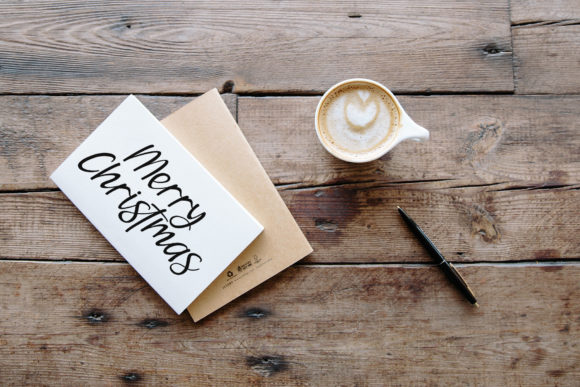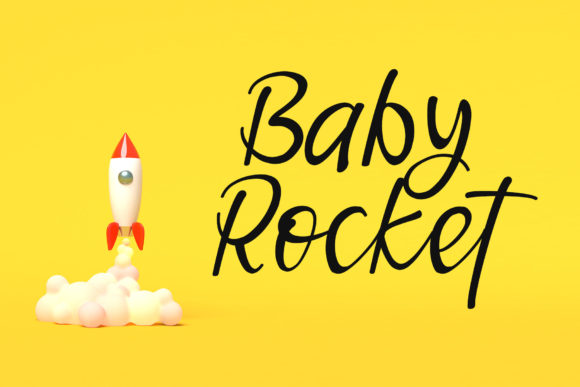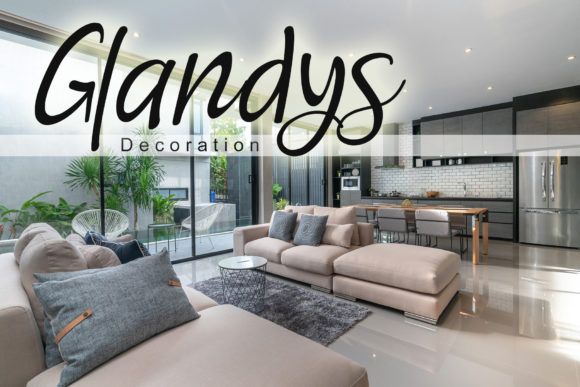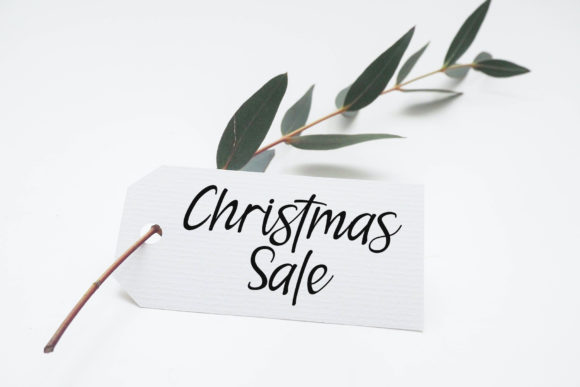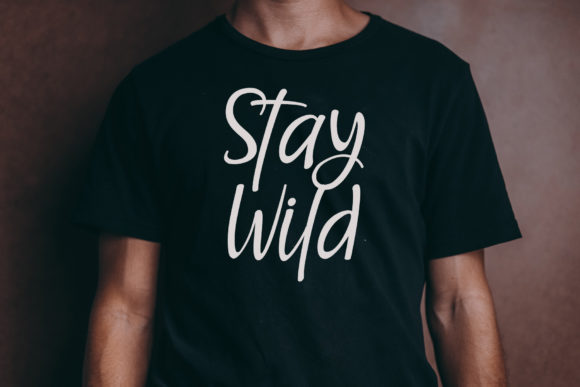
About Christiano Font
Christiano is a distinct and flowing calligraphy typeface with characters that dance along the baseline. It will add a luxury spark to any design project that you wish to create!